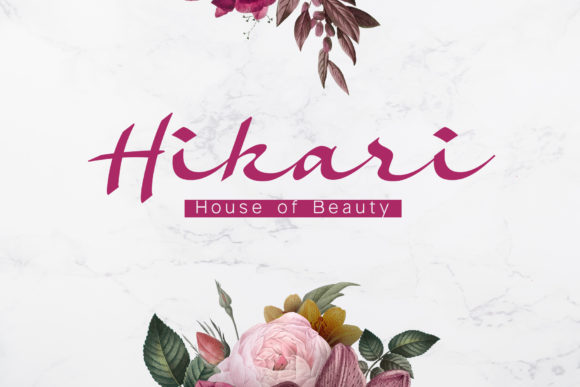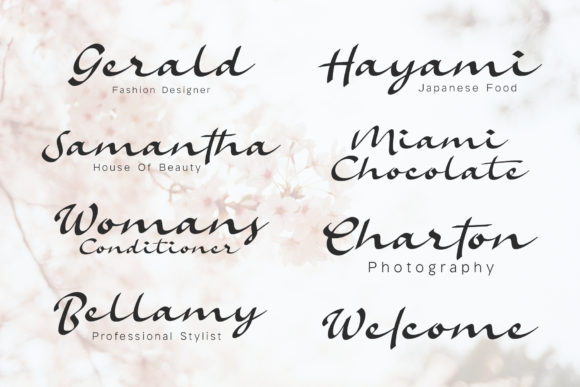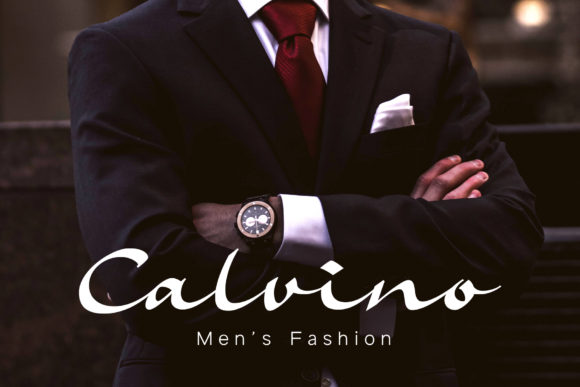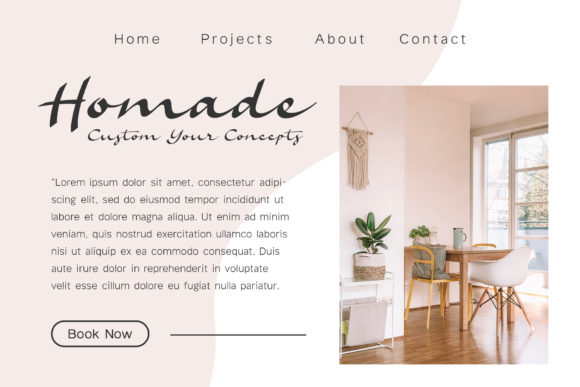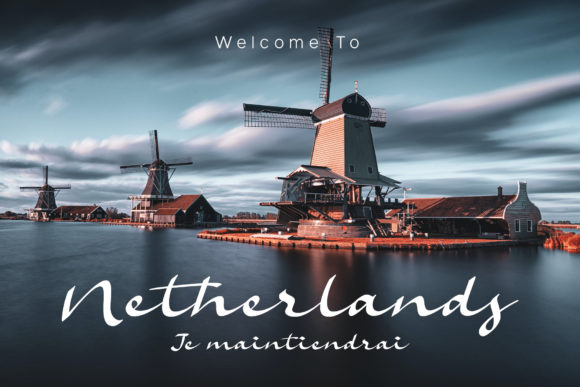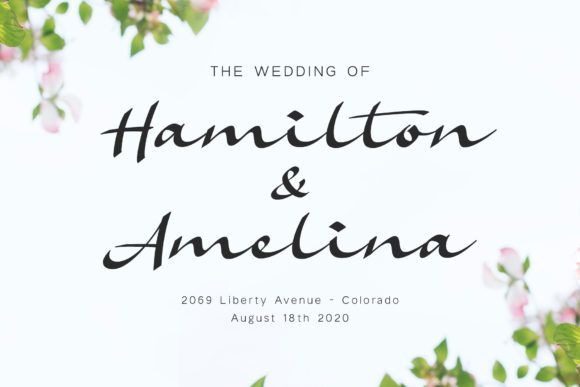
Introducing Amelina Font: The Ultimate Duo for Modern Designs
Are you tired of using the same old fonts for your designs? Look no further! Amelina Font is here to revolutionize your creative projects with its stunning script and sans serif combination. This match made in heaven is perfect for designers and crafters who want to elevate their work to the next level. In this article, we’ll dive into the features and benefits of Amelina Font, and explore how it can transform your designs.
The Perfect Pairing: Script and Sans Serif
Amelina Font is a duo that consists of a beautiful script font and a strong, cute sans serif font. When combined, they create a visually appealing contrast that adds depth and interest to any design. The script font is perfect for adding a touch of elegance and sophistication, while the sans serif font provides a clean and modern feel. This pairing is ideal for a wide range of design projects, including branding, headings, wedding designs, invitations, signatures, logos, labels, and more.
With Amelina Font, the design possibilities are endless. You can use the script font for headings, titles, and emphasis, while the sans serif font is perfect for body text, descriptions, and captions. The combination of these two fonts will give your designs a modern and outstanding feel that’s sure to grab attention. Whether you’re working on a branding project, creating wedding invitations, or designing labels, Amelina Font is the perfect choice.
Amelina Font is PUA (Private Use Area) encoded, which means you can access all the cute glyphs and swashes with ease. This feature allows you to add an extra layer of creativity to your designs, making them truly unique and eye-catching. With PUA encoding, you can easily access the font’s special features, including alternate glyphs and ligatures, to take your designs to the next level.
Special Features for Added Creativity
Amelina Font comes with a wealth of special features that will take your designs to new heights. Some of these features include:
- Alternate glyphs: Add variations to your text with alternate glyphs that offer different styles and flair.
- Ligatures: Create beautiful connections between letters with ligatures that add a touch of elegance to your designs.
- Swashes: Add a decorative touch to your text with swashes that can be used to create stunning headings and titles.
Amelina Font offers numerous benefits for designers and crafters, including:
- Time-saving: With its PUA encoding and special features, Amelina Font saves you time and effort in creating unique designs.
- Ease of use: The font is easy to use and navigate, making it perfect for designers and crafters of all levels.
- Versatility: Amelina Font can be used for a wide range of design projects, from branding and headings to wedding designs and labels.
- High-quality: The font is designed with high-quality and clarity in mind, ensuring that your designs look professional and polished.
In conclusion, Amelina Font is a game-changer for designers and crafters who want to elevate their designs to the next level. With its stunning script and sans serif combination, PUA encoding, and special features, this font duo is perfect for creating modern and outstanding designs. Whether you’re working on a branding project, creating wedding invitations, or designing labels, Amelina Font is the ultimate choice. So why wait? Get your hands on Amelina Font today and take your designs to new heights!